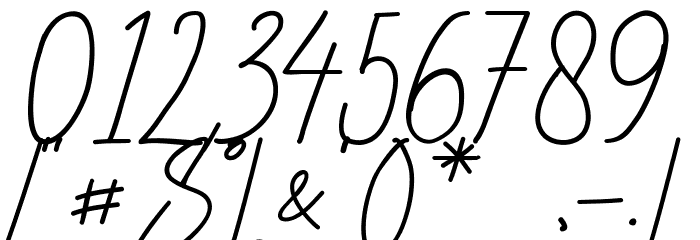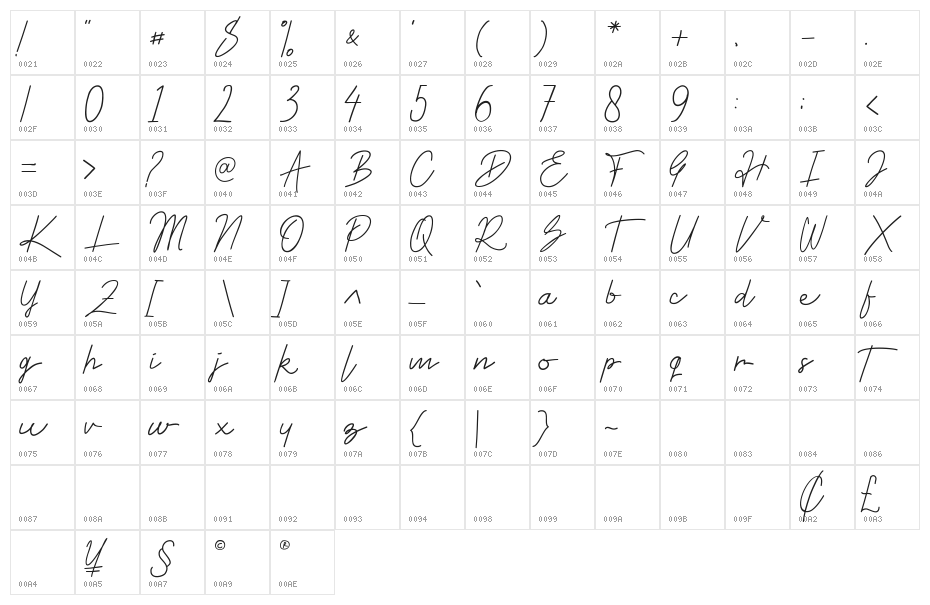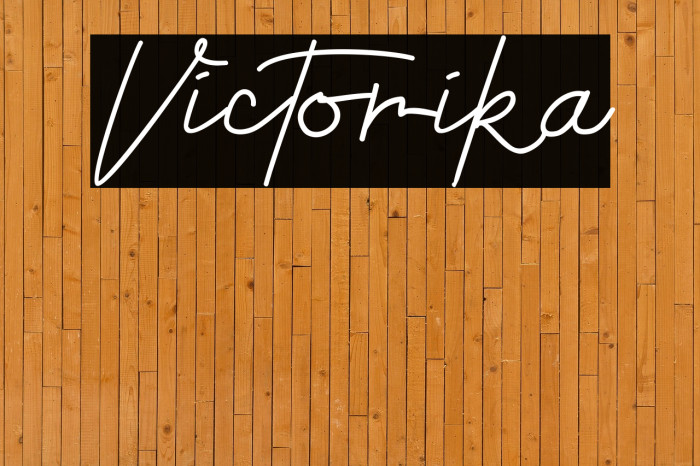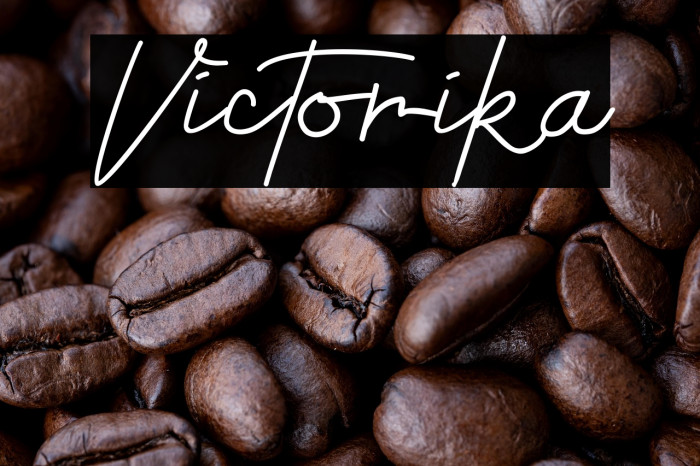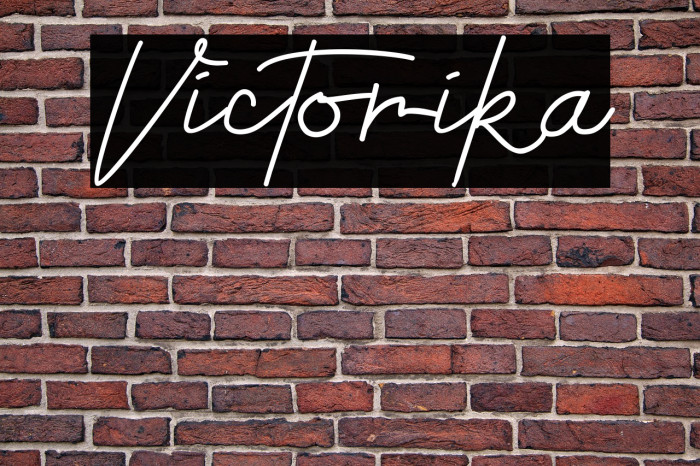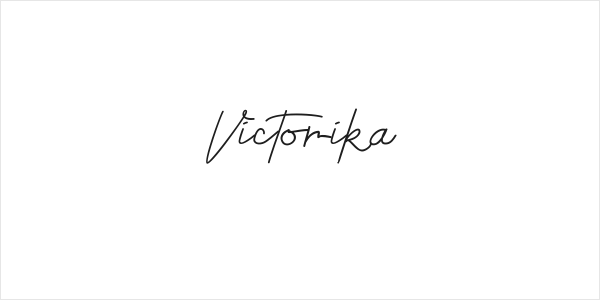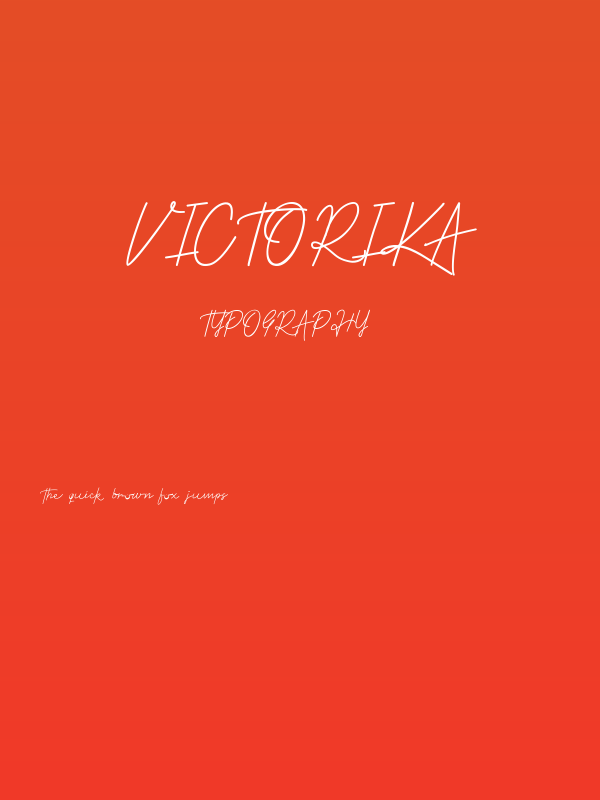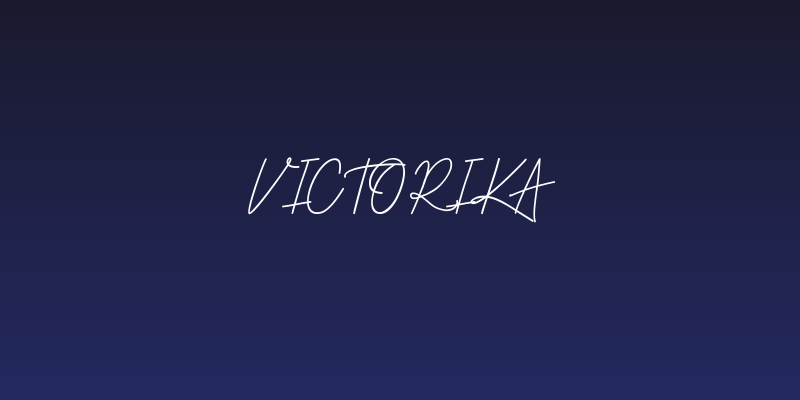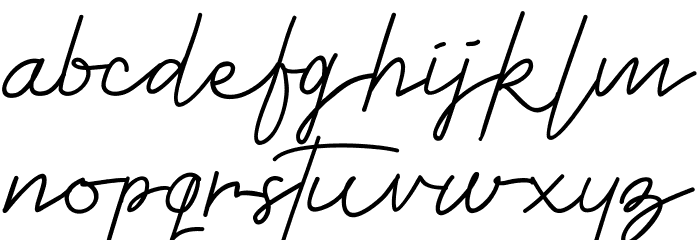
Victorika Font
Victorika Description
This font exudes a dynamic and fluid handwritten style, characterized by its elegant and flowing script. The uppercase letters maintain a consistent height with a slight slant, giving them a sophisticated yet approachable appearance. The lowercase letters are seamlessly connected, enhancing the cursive aesthetic. Numbers and special characters are crafted with the same fluidity, ensuring a cohesive look across all glyphs. The overall design is modern and stylish, making it suitable for projects that require a personal touch. The strokes are consistent in weight, providing a balanced and harmonious visual experience.
| Proposed Projects | Ideal for wedding invitations, personal branding, greeting cards, and social media graphics. |